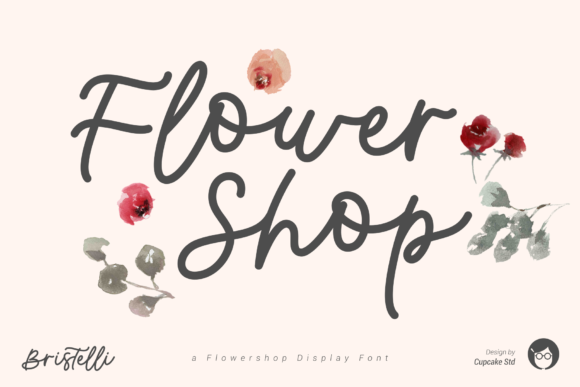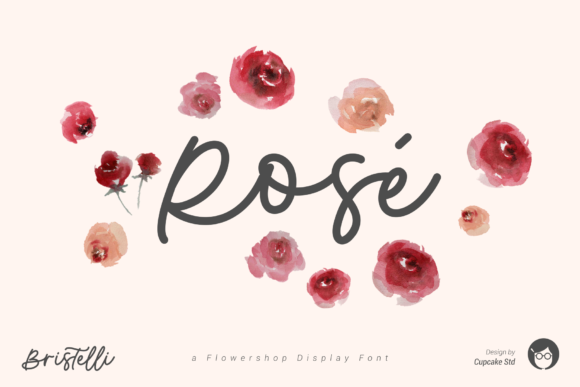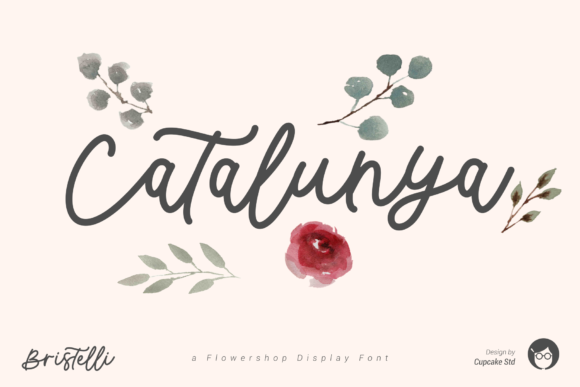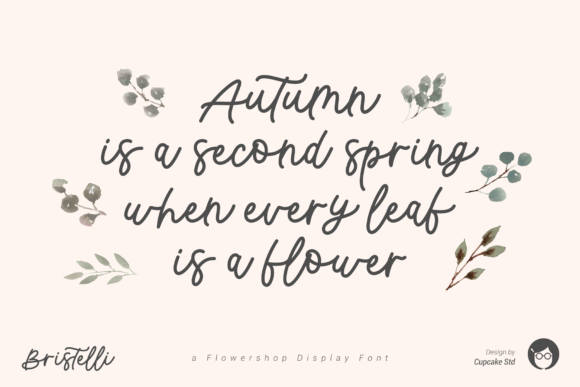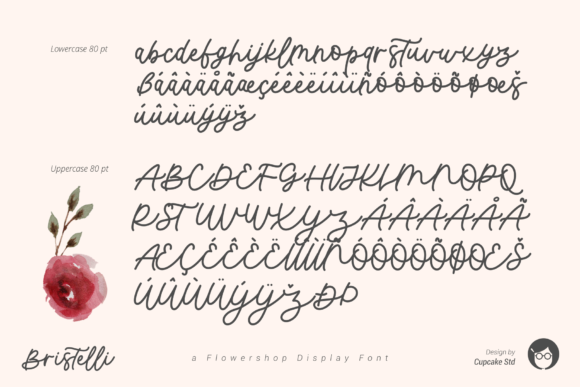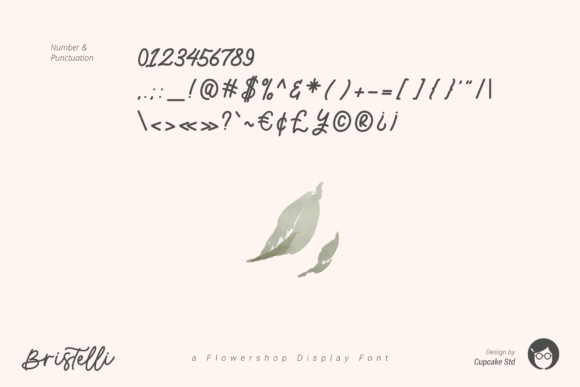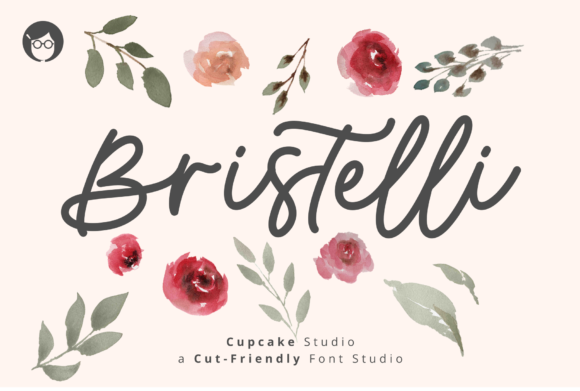
Introducing AL Bristelli Font: Elevate Your Creativity with Elegant Handwritten Style
In the world of typography, few fonts manage to capture the essence of elegance and simplicity as effectively as AL Bristelli Font. This exceptional handwritten font has been designed to transform any creative project into a masterpiece, whether you’re a designer looking for the perfect Instagram font or a crafter seeking calligraphy scripts for DIY endeavors. With AL Bristelli, the possibilities are endless, and the outcome is always stunning.
The Essence of AL Bristelli Font
AL Bristelli Font stands out in the vast sea of typefaces due to its unique ability to simplify elegance into a truly outstanding handwritten style. This font is not just a collection of letters; it’s an expression of artistry and sophistication. Its fluid strokes, graceful curves, and meticulous detailing come together to create a visually appealing aesthetic that can elevate any project.
For designers, AL Bristelli Font offers a versatile tool that can be used across various platforms and projects. Whether you’re working on a branding campaign, creating engaging content for social media, or designing promotional materials, this font can add a touch of class and sophistication. Its unique style ensures that your work stands out, making it an excellent choice for those looking to leave a lasting impression.
Crafters, on the other hand, will find AL Bristelli Font to be an invaluable resource for DIY projects. From handmade cards and invitations to craft blog posts and social media updates, this font can add a personal touch that makes your creations truly special. Its calligraphy-like quality brings a level of elegance and professionalism to your work, making it perfect for those who enjoy adding a decorative flair to their projects.
Why Choose AL Bristelli Font?
So, what makes AL Bristelli Font a preferred choice for designers and crafters? Here are a few reasons:
- Elegance and Versatility: AL Bristelli Font embodies elegance and can be used in a variety of contexts, from formal to casual.
- High Readability: Despite its elegant and cursive nature, the font maintains high readability, making it suitable for both headings and body text.
- Unique Style: Its distinctive handwritten style ensures that your projects stand out from the crowd, adding a personal touch that resonates with audiences.
Using AL Bristelli Font for Instagram and Social Media
In today’s digital age, social media platforms like Instagram have become essential channels for designers and crafters to showcase their work. AL Bristelli Font can help you make a significant impact on these platforms. Its stylish and elegant appearance makes it perfect for:
- Instagram Captions and Stories: Elevate your Instagram game with beautifully styled captions and stories that capture your audience’s attention.
- Social Media Graphics: Create stunning social media graphics, including quotes, announcements, and promotional materials, that reflect your brand’s personality.
AL Bristelli Font is more than just a typeface; it’s a tool for creativity, a means to express elegance and sophistication in your projects. Whether you’re a designer aiming to enhance your brand’s visual identity or a crafter looking to add a touch of elegance to your DIY projects, AL Bristelli Font is an excellent choice. Its ability to simplify elegance into a truly outstanding handwritten style makes it a versatile and valuable asset in your creative arsenal. So, why settle for ordinary when you can create something truly extraordinary with AL Bristelli Font?
Embrace the elegance, let your creativity shine, and transform your projects into pieces of art with AL Bristelli Font. The possibilities are endless, and the beauty of your creations is just a font away.